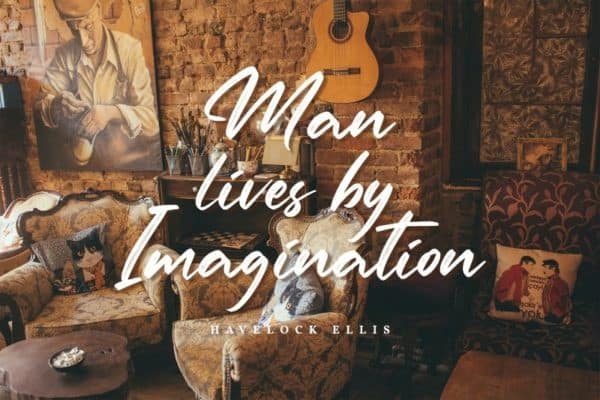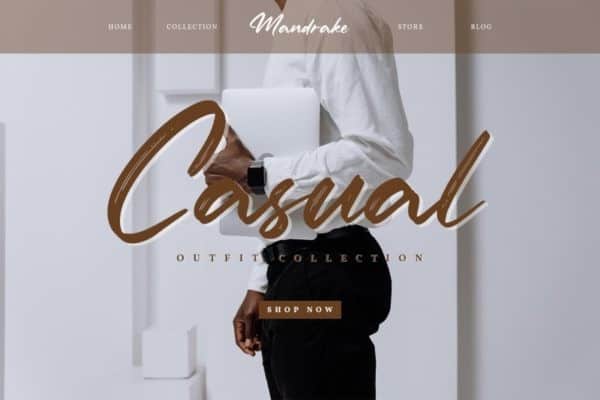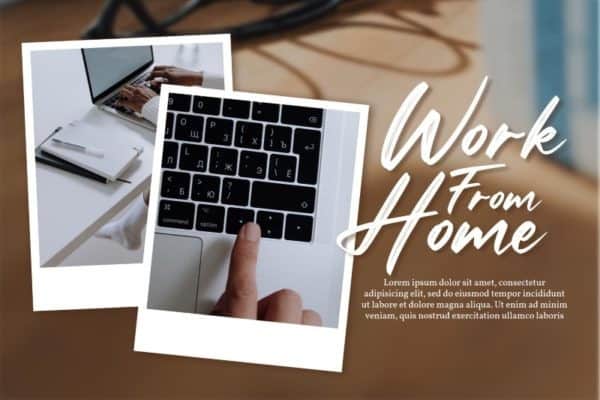
Batteny Brush Font is textured brush typeface, a contemporary approach to design, with a handmade natural and irregular baseline. Made from font designer named Din Studio. Batteny is a classy script font. Combined with brush textured handwritten will make your design project more powerful. Made for any professional project branding. It is the best for logos, branding and of course quotes. Every letter has a unique and beautiful touch.